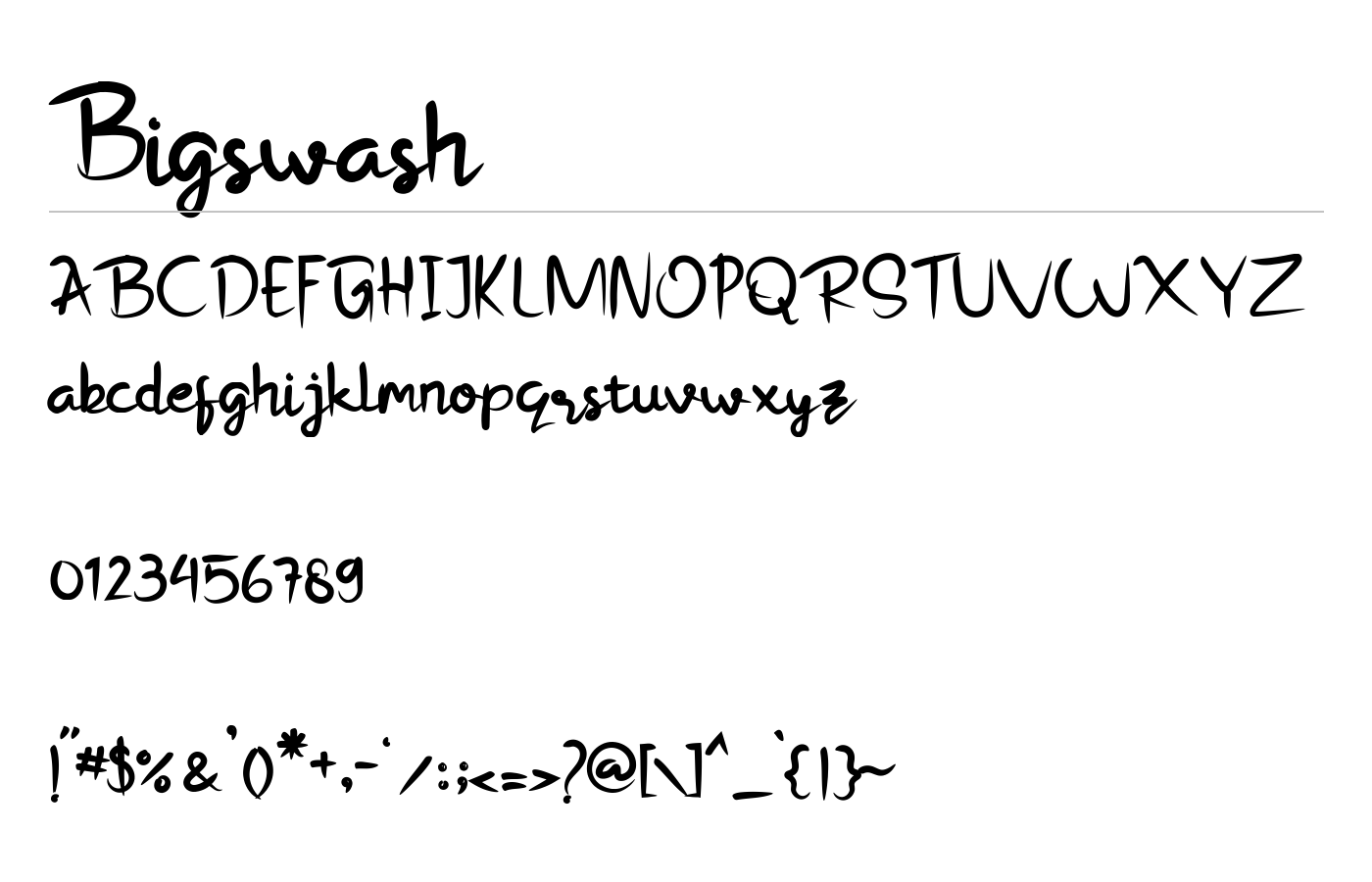
Bigswash is a lively and casual script-inspired font with a playful handwritten character that combines natural brush strokes with a slightly quirky touch. Its smooth, moderately wide letterforms and moderate contrast make it ideal for creating a friendly and approachable vibe, perfect for creative projects, invitations, branding, or social media where a personal and informal feel is desired. This font shines in headline or display uses where its unique personality can truly stand out and engage the reader.
Bigswash Font
About Bigswash Font